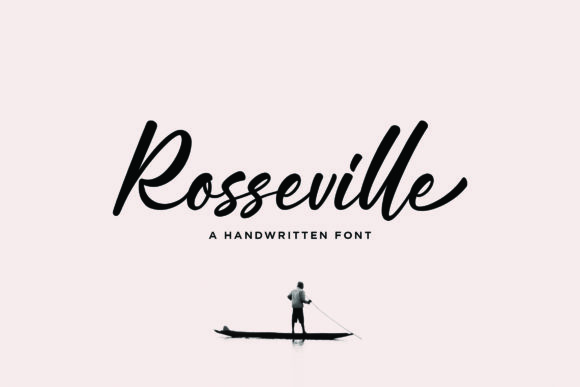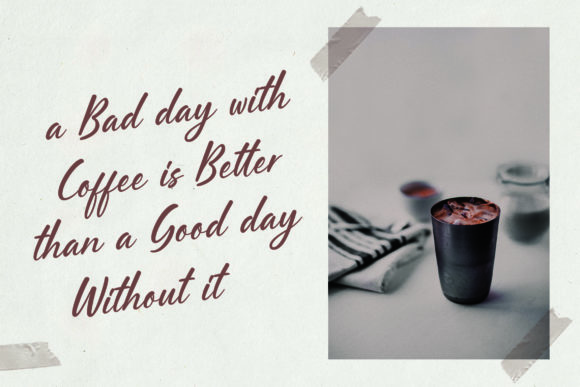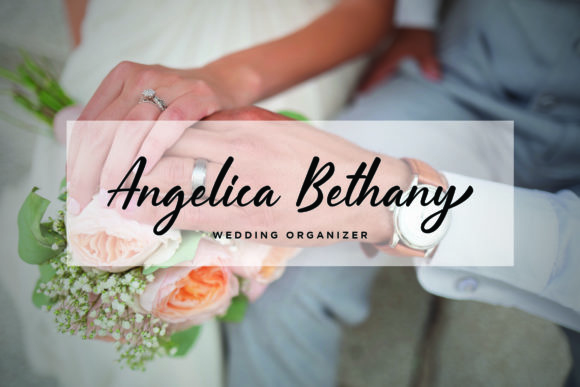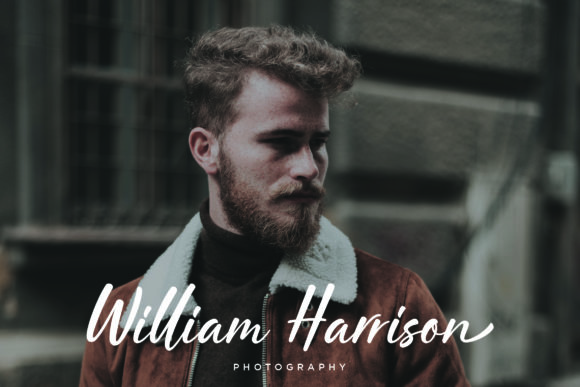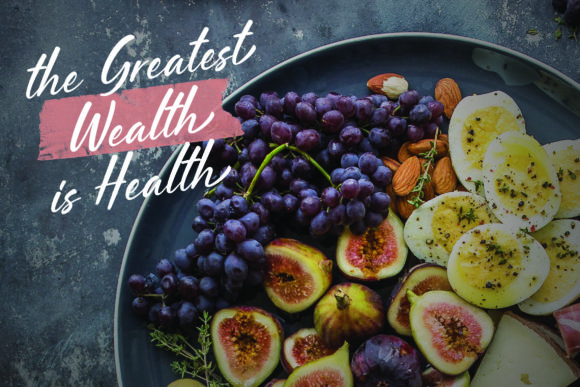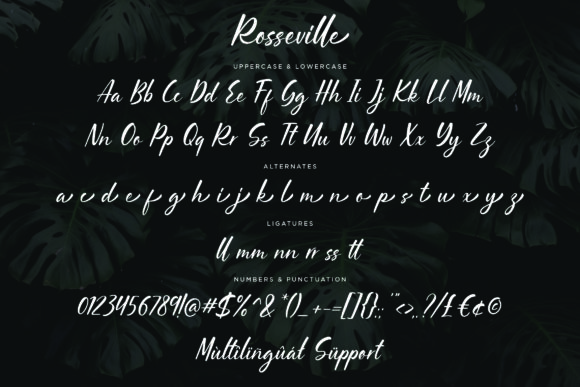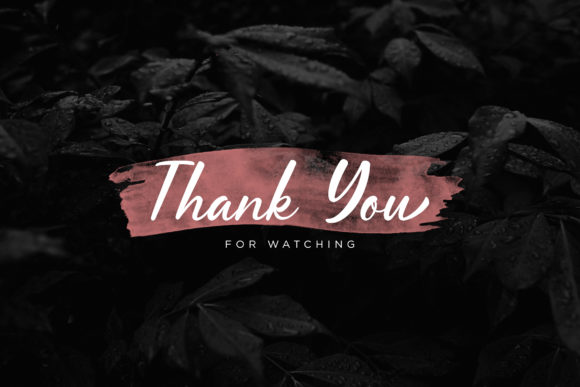
Rosseville Font
About Rosseville Font
Rosseville is a fabulous script font made with tons of love. This font can make your text stand out from the crowd!